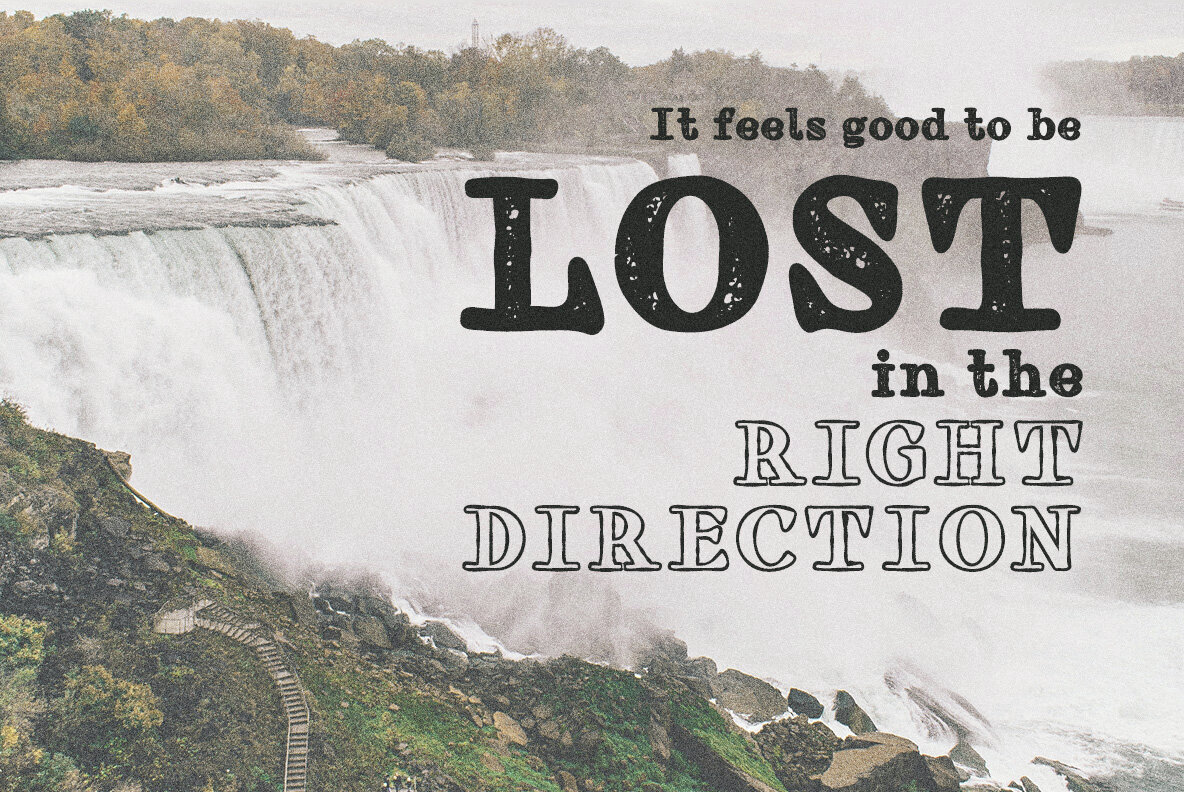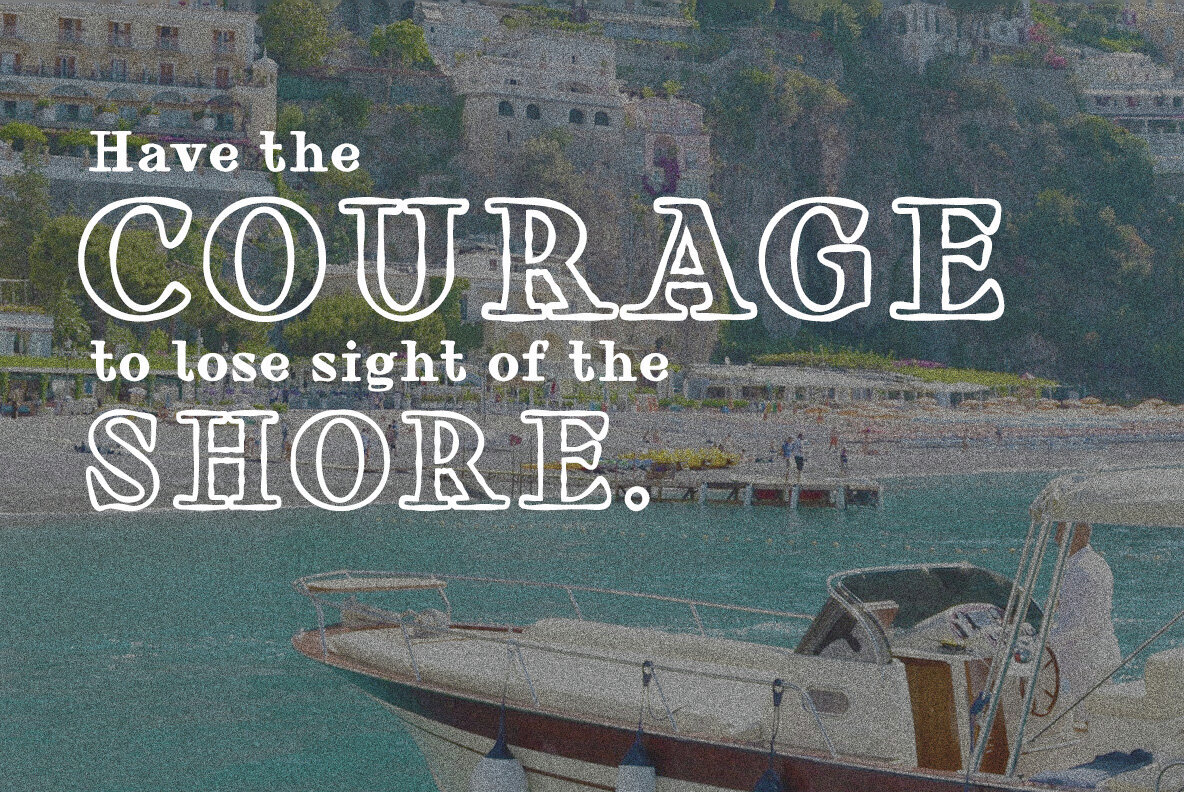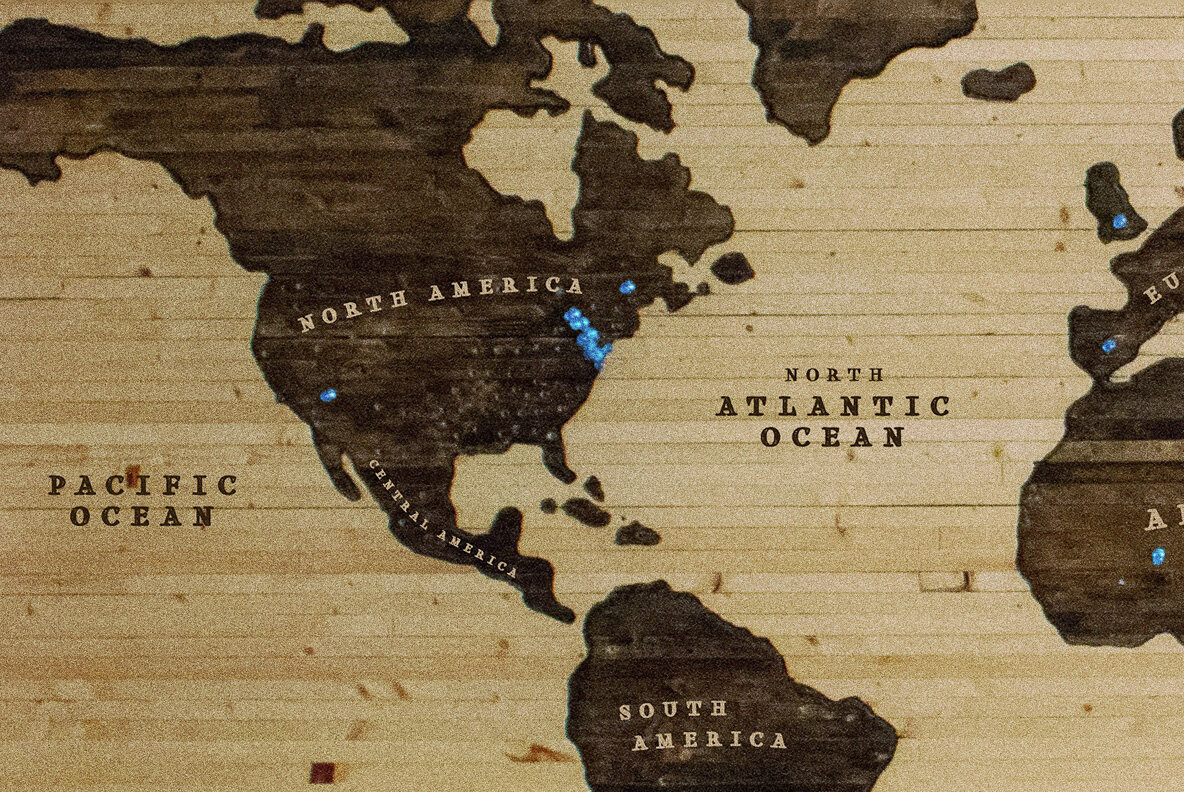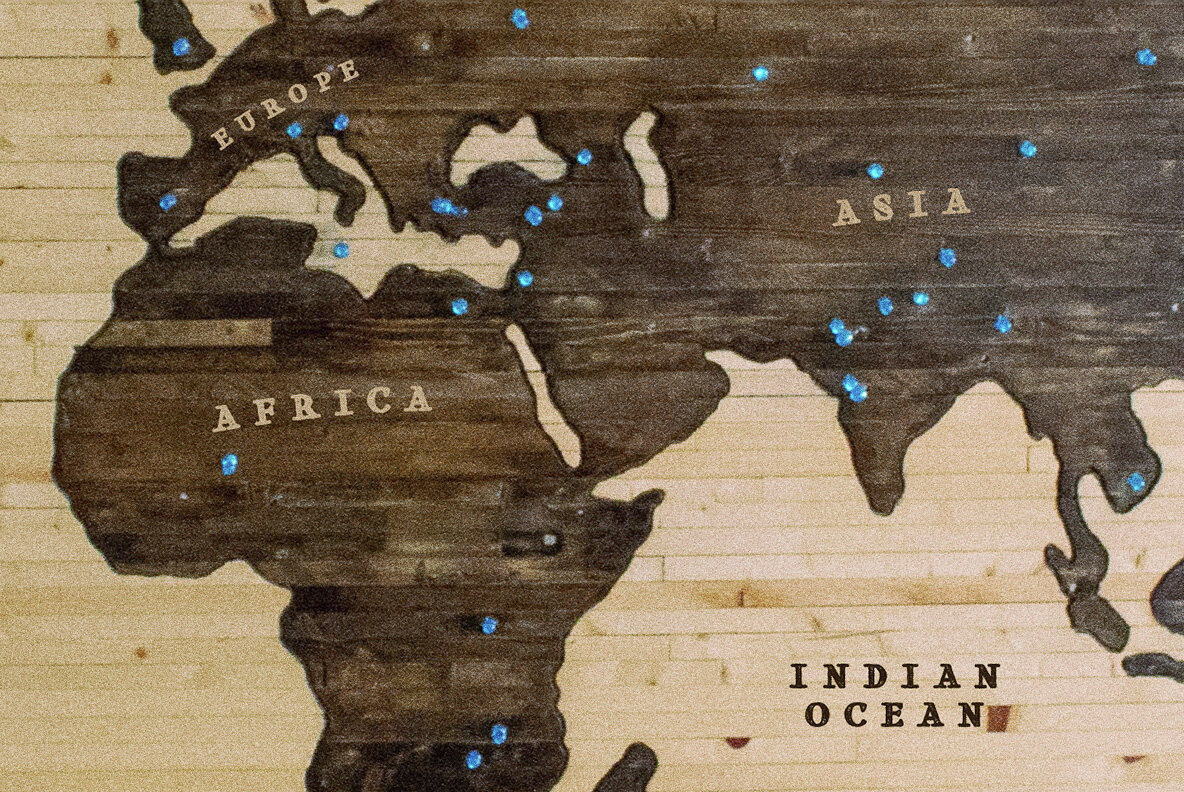
Aventia Serif Font
Aventia Serif Regular
Aventia Serif Distressed
Aventia Serif Outline
Introducing Aventia, a modern distressed slab serif. Inspired by classic medieval maps, Aventia combines the vintage look of those old maps with modern distressing and font outline styling. With thick serifs and rough edges, Aventia is a great choice bold, adventurous design, not to mention modern map design!